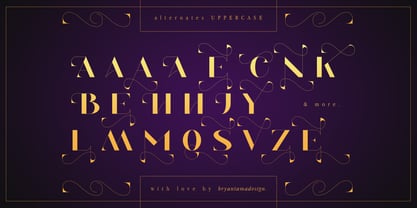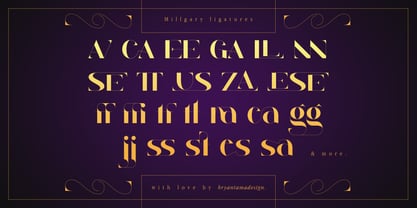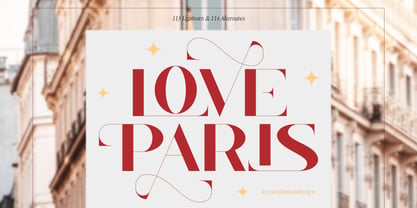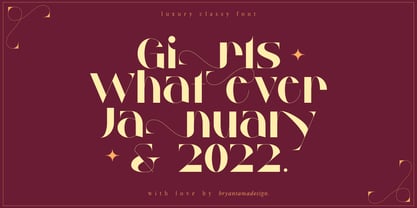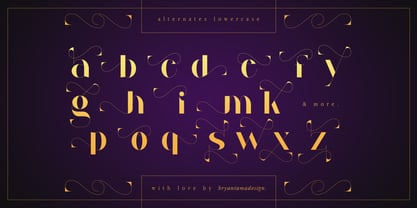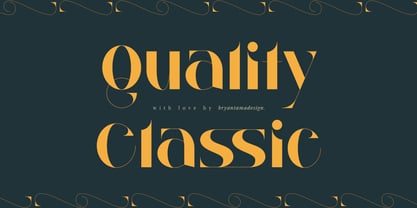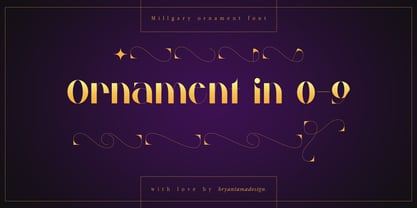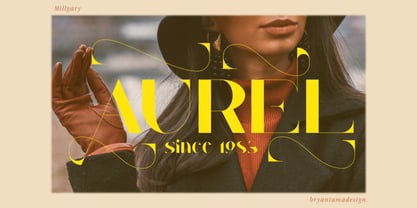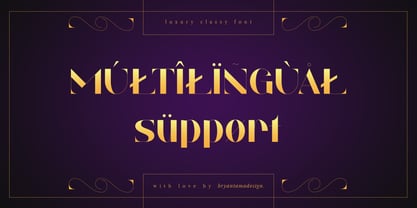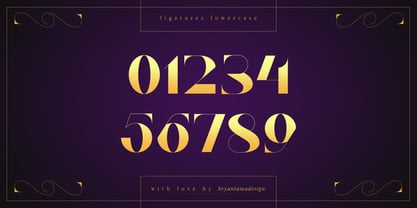
Millgary
Die Schriftfamilie Millgary wurde von Bryantama Nur Hidayat Suyoto entworfen und von Bryantamanh veröffentlicht. Millgary enthält 2 Stile und Familienpaketoptionen. Mehr über diese Familie
Introducing Millgary, a luxury and classy typeface inspired by the historical architecture of European cities. This font boasts a unique personality with its ornamental style and a touch of modernity, making it perfect for a variety of applications including branding, social media, posters, packaging, and more. Millgary includes uppercase and lowercase letters, numbers, and punctuation, along with an impressive array of OpenType features, featuring 114 alternates and 113 ligatures. It also offers multilingual support. The ornament font includes decorative elements available only in numbers, so simply type 0-9 to access the Millgary Ornament. Elevate your designs with Millgary Font, a sophisticated display typeface characterized by sleek lines and refined curves. Ideal for high-end branding, editorial layouts, and luxury packaging, it imparts an effortless sense of class and exclusivity. What a beauty!
Bryantamanh (StudioinBry) is a talented Digital Visual Artist based in Indonesia, specializing in digital imaging, visual art, and typography. With a passion for designing and editing diverse images, Bryantamanh integrates typography into his work, enhancing visual storytelling. Recently, he has expanded his expertise to include font creation, enabling brands to establish strong identities through innovative, functional, and meaningful designs.